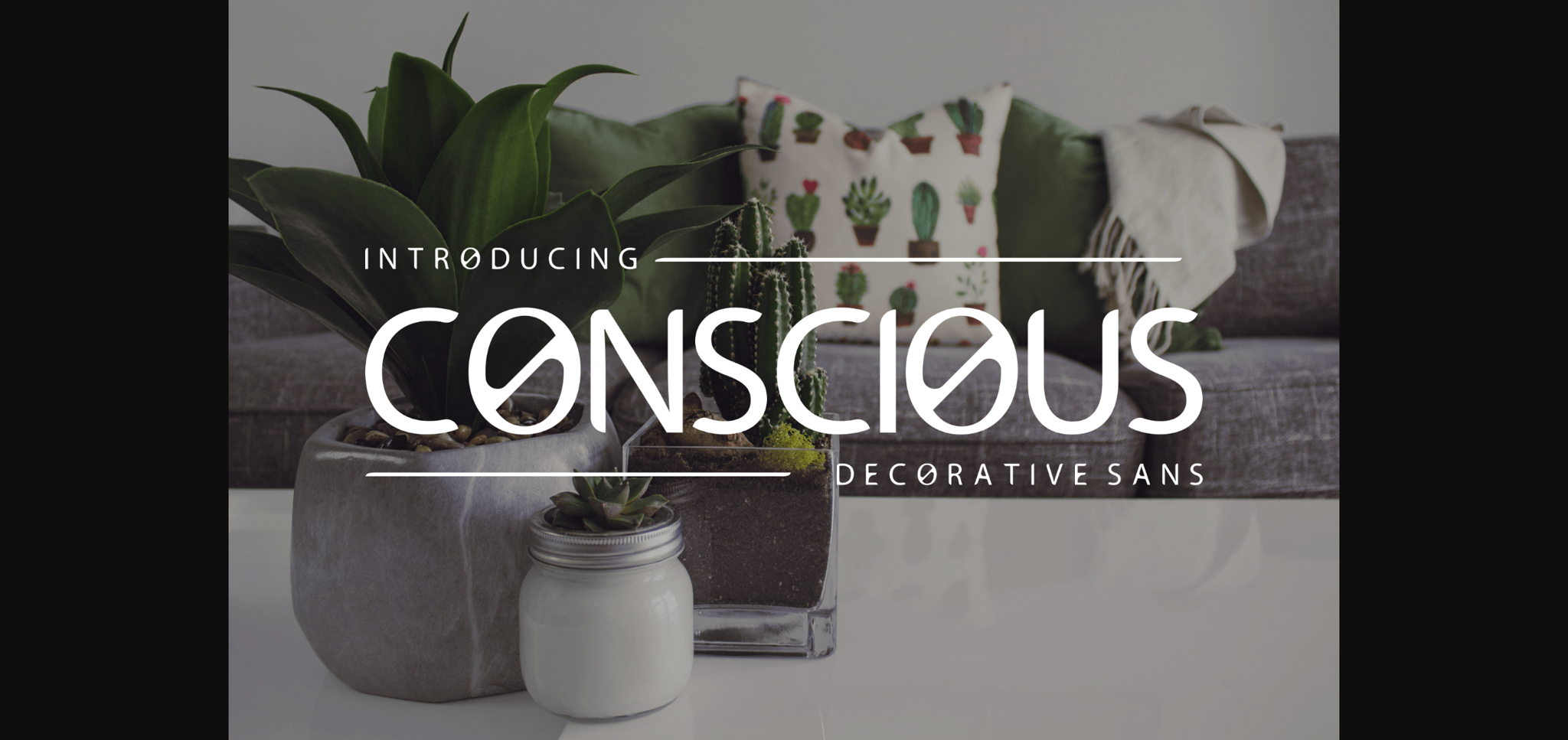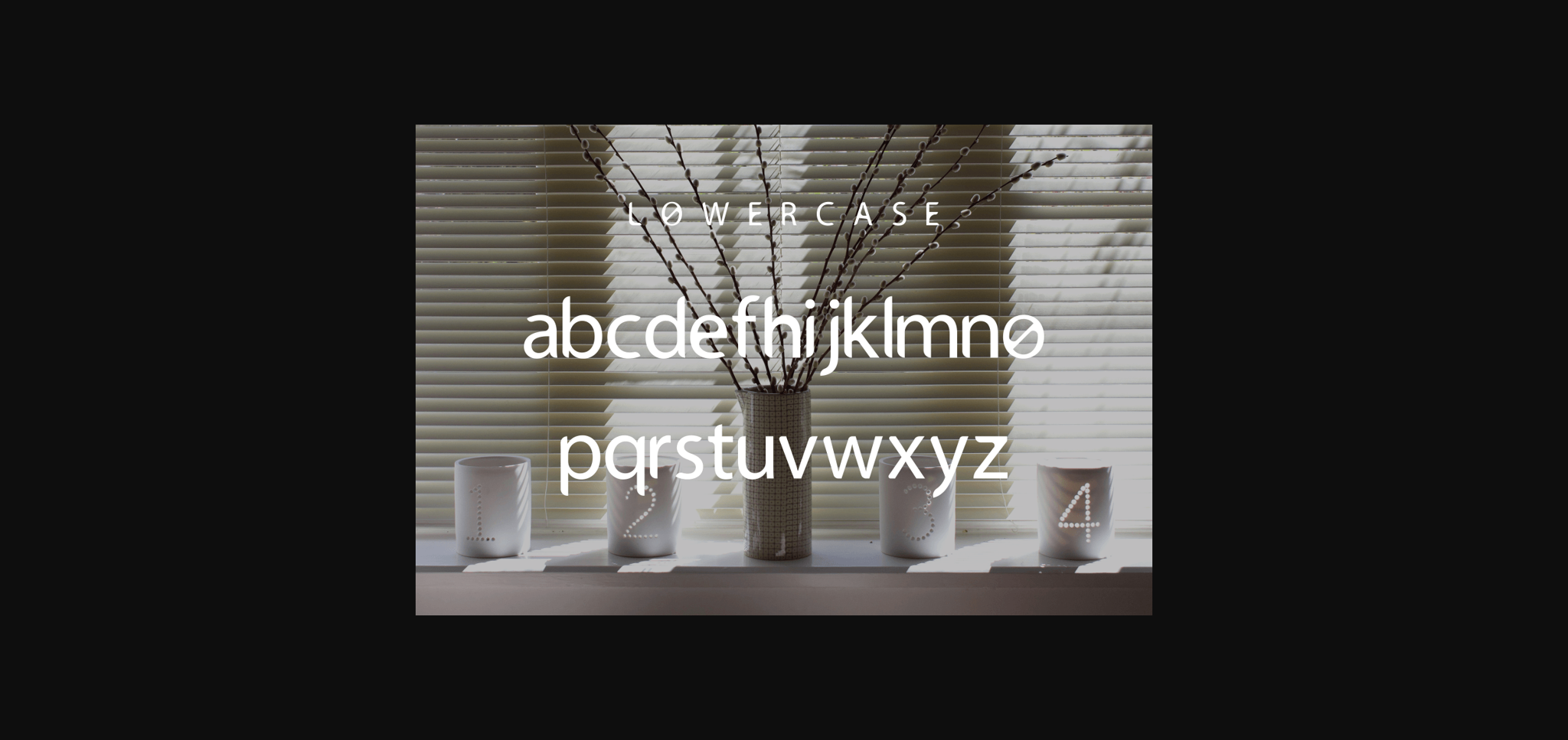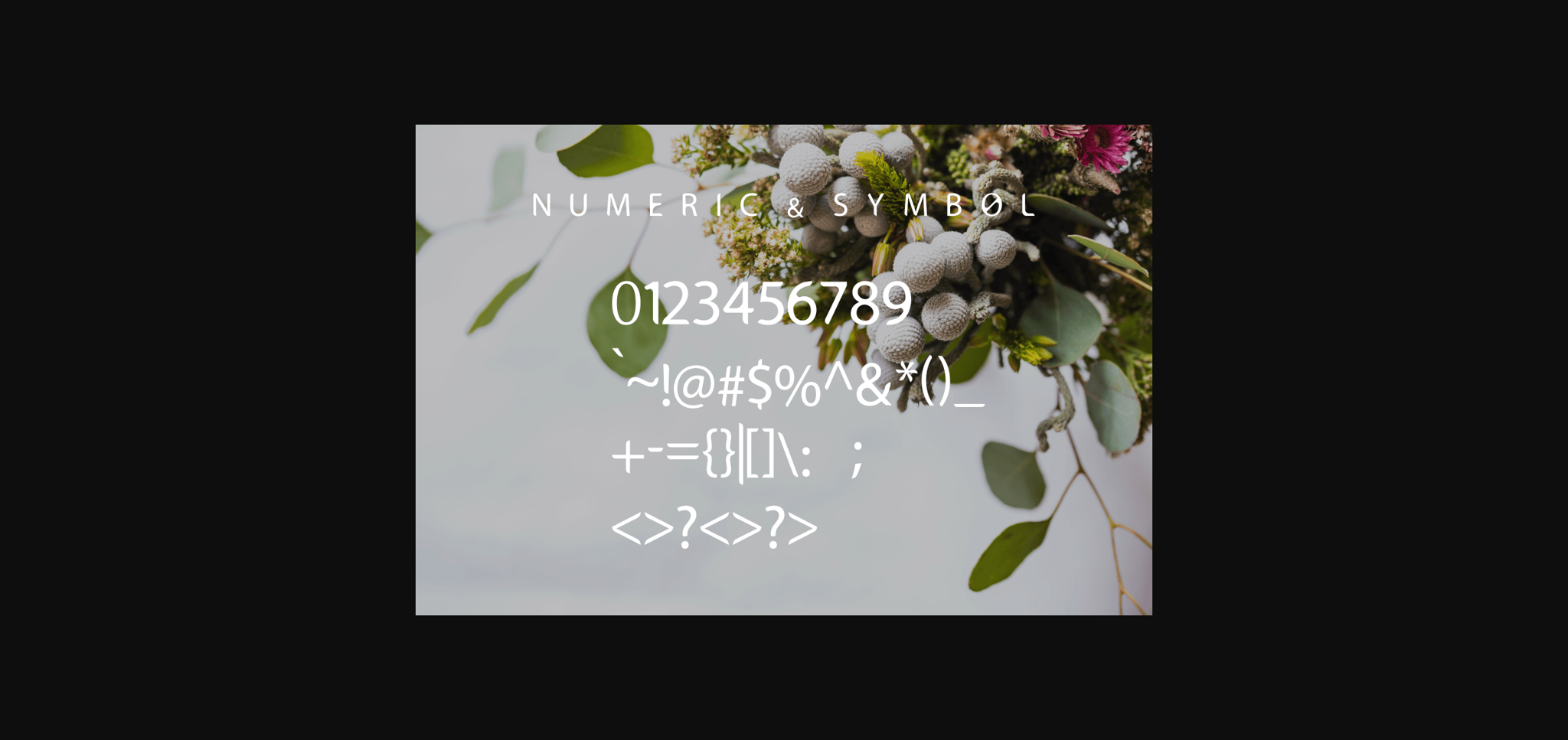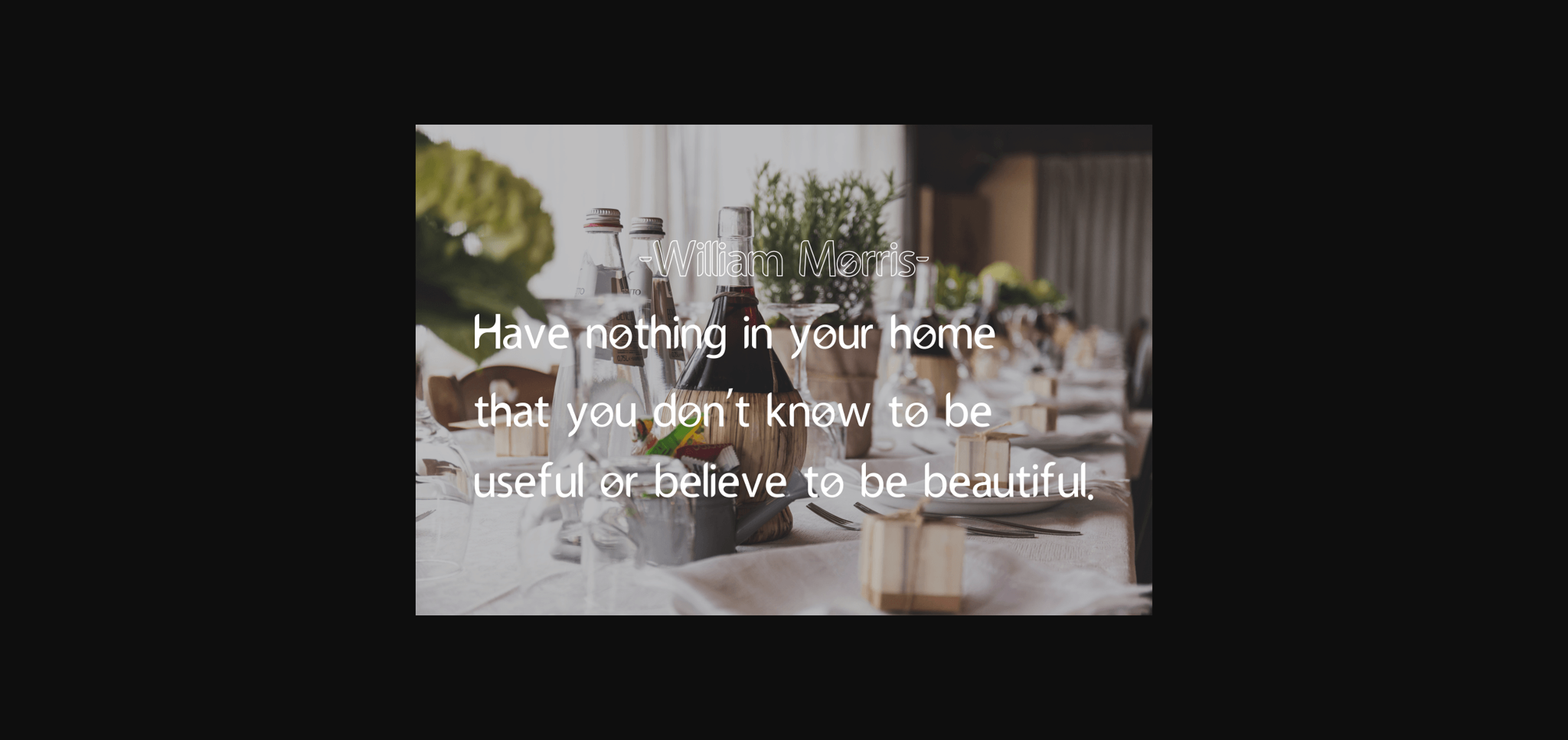
Conscious Font
About Conscious Font
Conscious is a stylish and modern sans serif font. Use it to create unique t-shirt designs, posters, digital designs, cards, and many more.